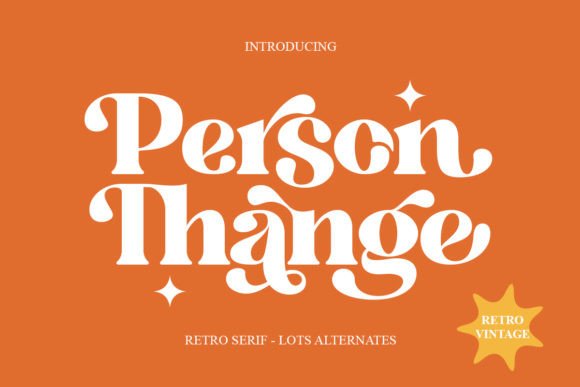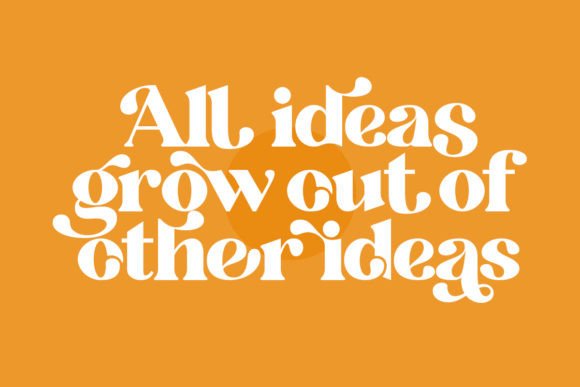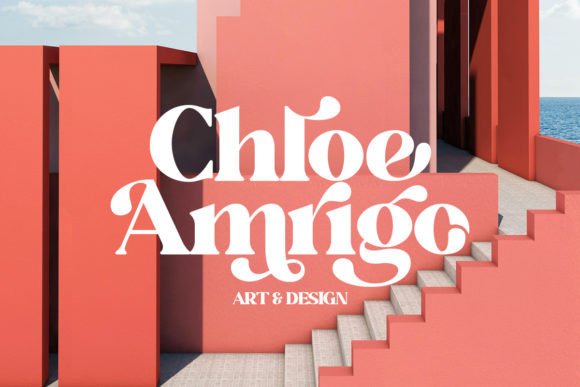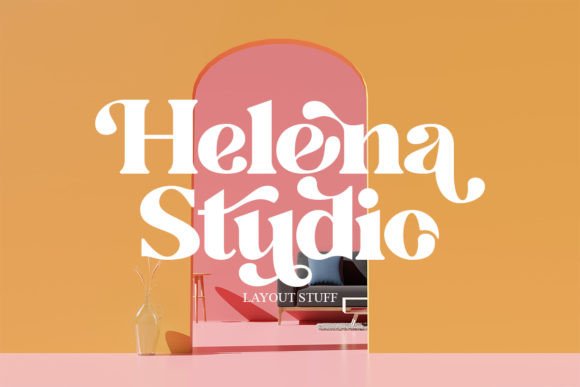
Person Thange Font: Groovy Retro Serif for Eye-Catching Design
About the Person Thange Font
Discover the charm of Person Thange Font. This font is a perfect blend of modern aesthetics and classic appeal. Person Thange is an elegant and bold serif font. Fall in love with its incredibly versatile style and use it to create gorgeous wedding invitations, beautiful stationary art, eye-catching social media posts, and much more!
Its strong serifs and confident stroke contrast make Person Thange ideal for headlines, logos, and short-form text in branding materials, posters, and invitations. The font’s elegance shines in applications requiring a touch of sophistication, such as high-end packaging or luxury product marketing. However, its bold weight and relatively high x-height make it less suitable for body text or lengthy paragraphs where readability is paramount. Avoid using it in UI contexts or situations demanding small sizes.
Pairing Person Thange with a clean sans-serif like Open Sans for body copy creates a sophisticated contrast. For a more playful feel, consider pairing it with a handwritten script font, but ensure the script complements, rather than competes with, Person Thange’s boldness. A geometric sans-serif such as Futura would offer a modern, structured counterpoint.
Person Thange projects a personality of refined boldness. It is confident yet elegant, making it a strong choice for brands aiming for a premium and authoritative image.
Person Thange Font Usage Examples
Person Thange Font Example